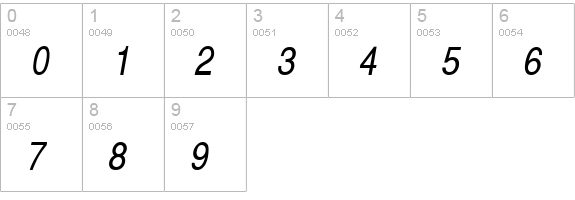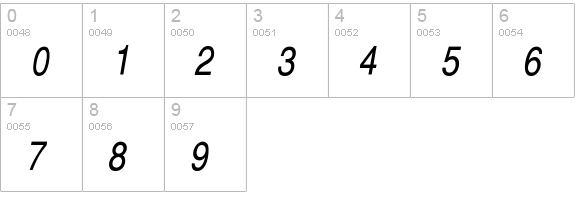
SwitzerlandNarrow Italic Font Details
SwitzerlandNarrow Italic is a distinctive, italic variant in the SwitzerlandNarrow typeface family \xE2\x80\x94 well suited to design and typography projects.
SwitzerlandNarrow Italic font is a sleek and modern typeface that exudes elegance and sophistication. Its narrow design adds a touch of sophistication to any project, making it perfect for editorial purposes or branding applications. The italic style of the font adds a sense of flair and personality, making it stand out from the crowd. This versatile font is freely available to download at FontsMarket.com, allowing you to incorporate its unique charm into your designs without any cost. Whether you're working on a magazine layout, website design, or logo creation, SwitzerlandNarrow Italic font is sure to elevate your work to the next level. Don't miss out on the opportunity to add this stunning font to your collection and make a lasting impression with your projects.